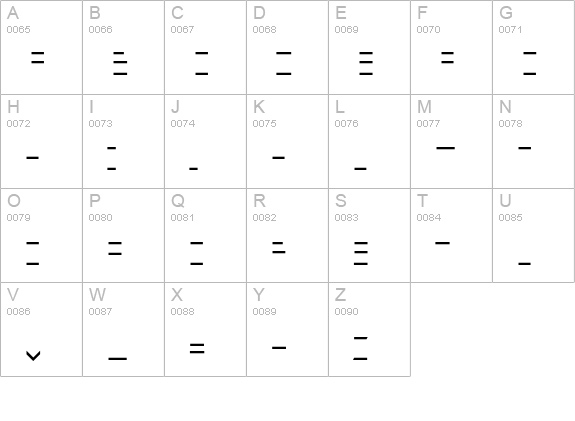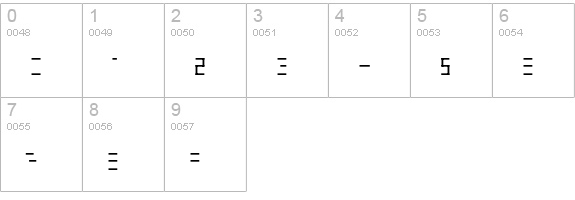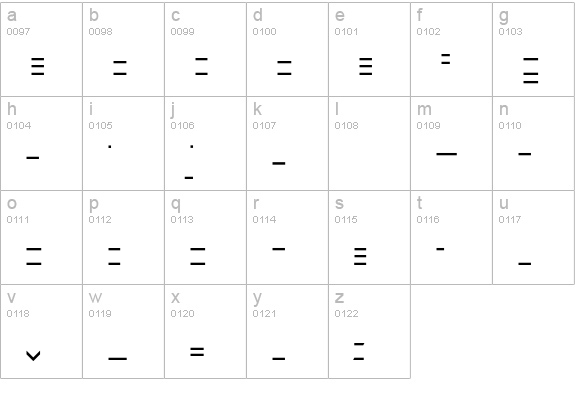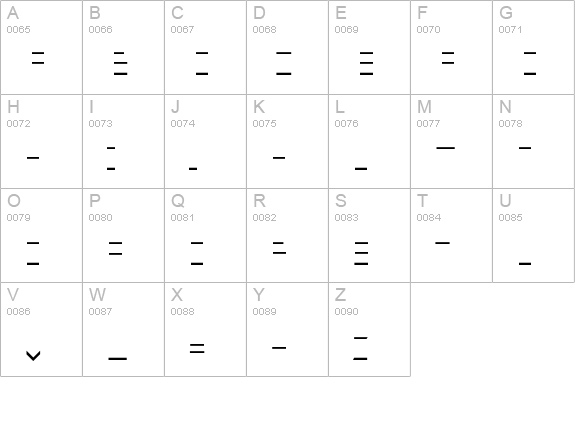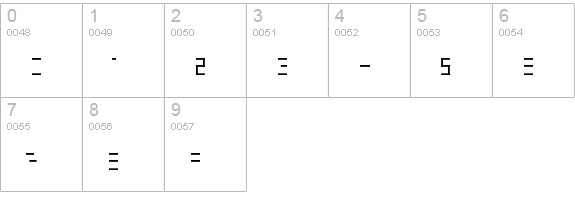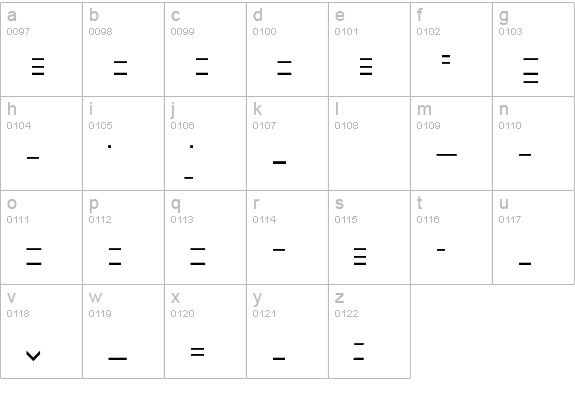
Minimum-BichroMediumHorizontal Font Details
Minimum-BichroMediumHorizontal font is a sleek and modern typeface that exudes sophistication and elegance. Its clean lines and balanced proportions make it perfect for a wide range of design projects, from branding to editorial layouts. The font's medium weight strikes the perfect balance between a strong presence and readability, making it versatile for both display and body text. Whether you're designing a website, poster, or packaging, Minimum-BichroMediumHorizontal font will elevate your project with its contemporary aesthetic. Best of all, this font is available for free download at FontsMarket.com. Embrace the sleek and refined style of Minimum-BichroMediumHorizontal font in your next design project and make a lasting impression.